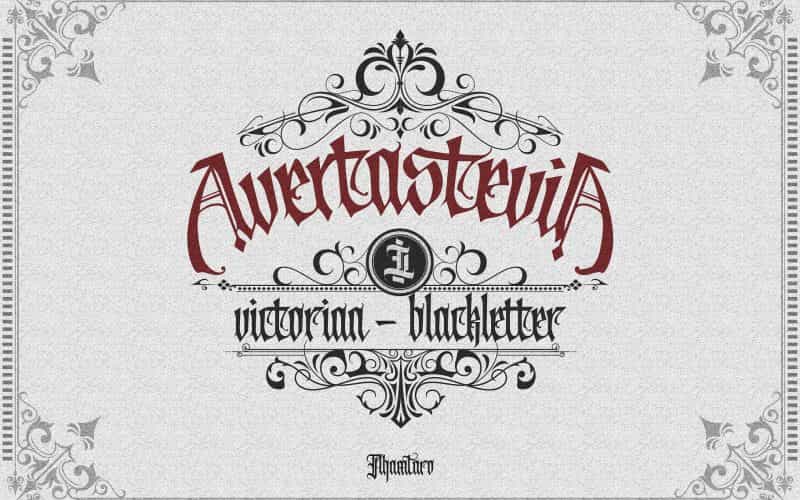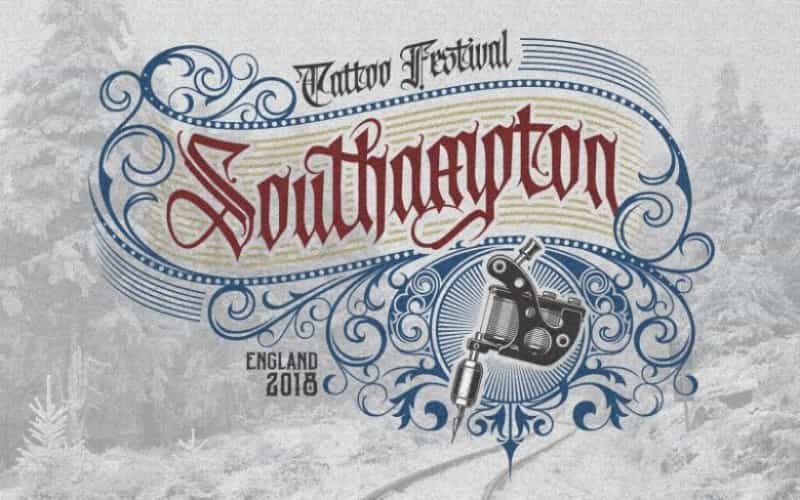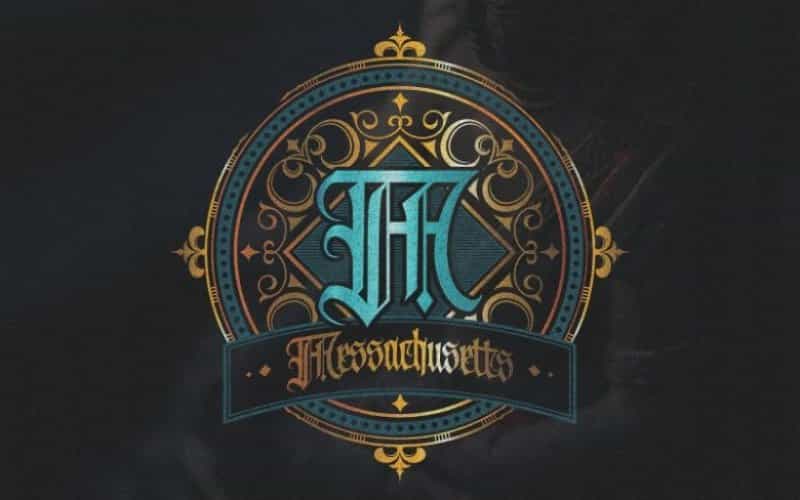
Discover Avertastevia Gothic Font, part of the Calligraphy Blackletter Various Gothic collection—a versatile and unique font perfect for adding a personal touch to your projects. Download it for free and enjoy crafting designs with style, from invitations to social media posts. This font is available exclusively for personal use, giving you the freedom to create without limits. Unlock your creativity with Avertastevia Gothic Font today!
A typeface with Victorian-Blackletter style taste, includes full set of gorgeous uppercase and lowercase letters, numerals, punctuation, ligatures, discretionary ligatures, alternate characters, multilingual characters support and extra ornaments, giving realistic calligraphy victorian-blackletter style.